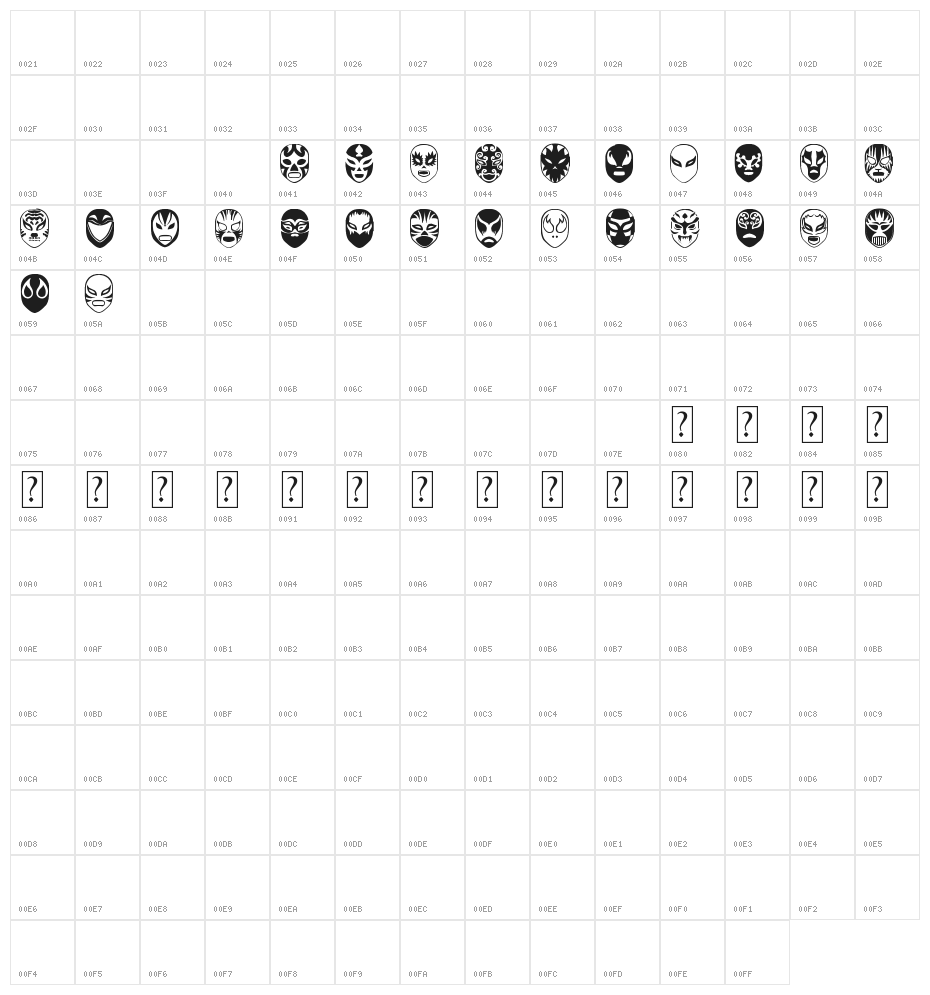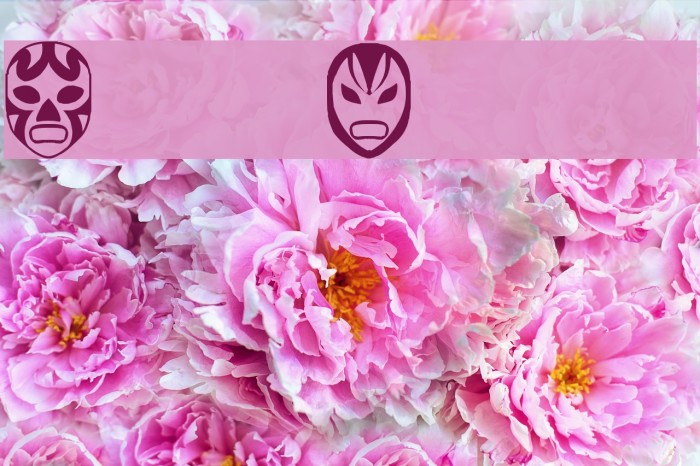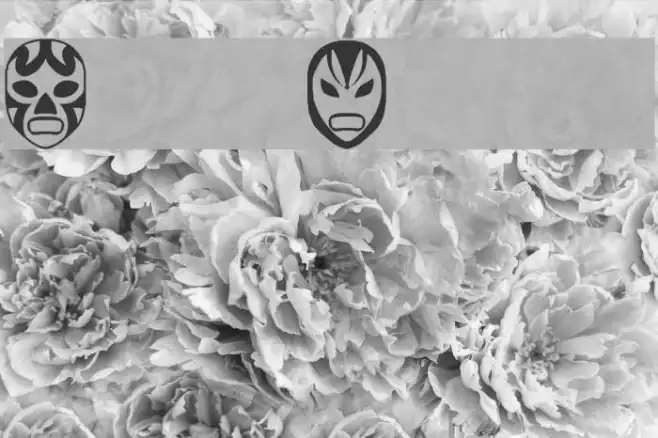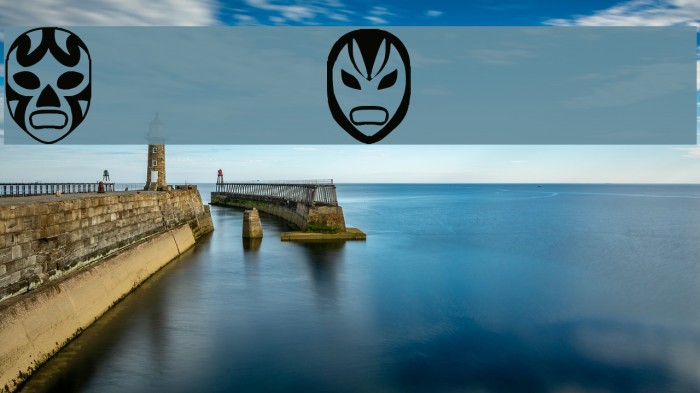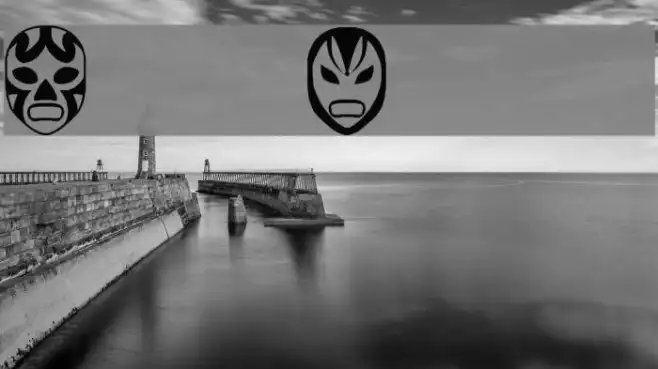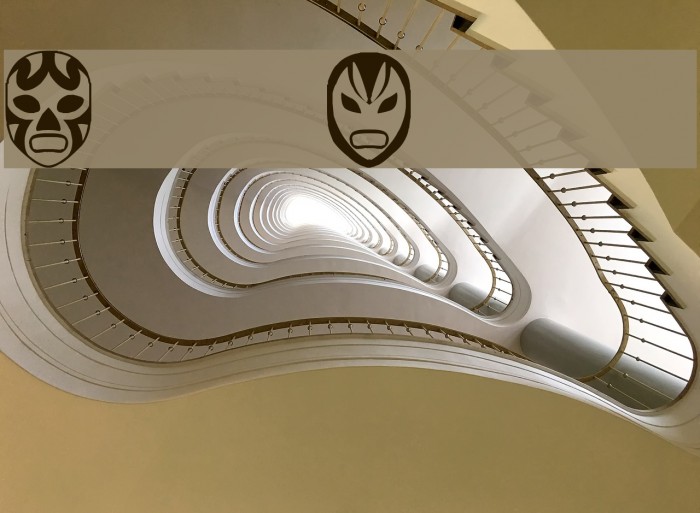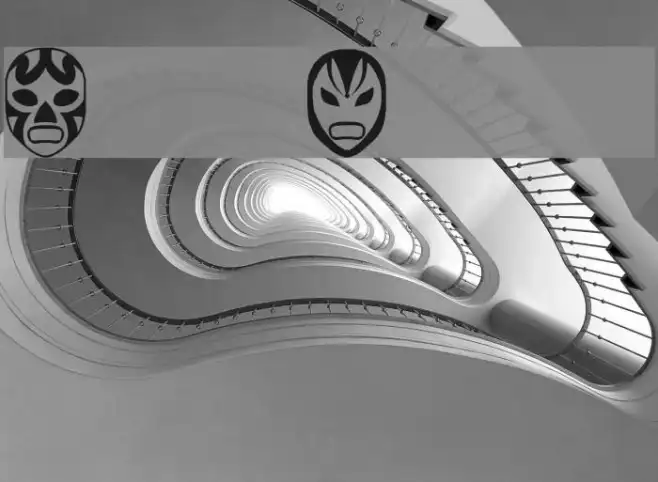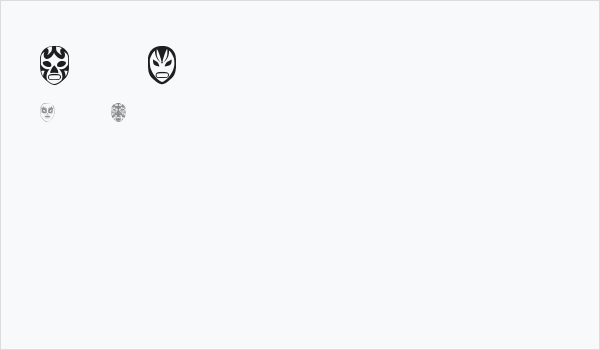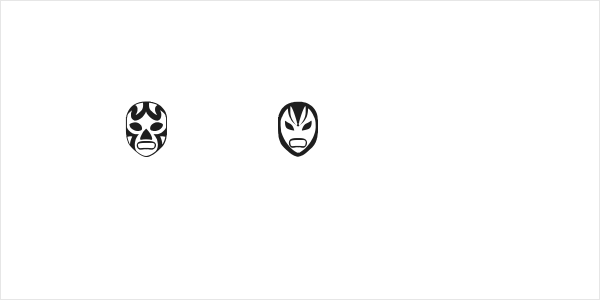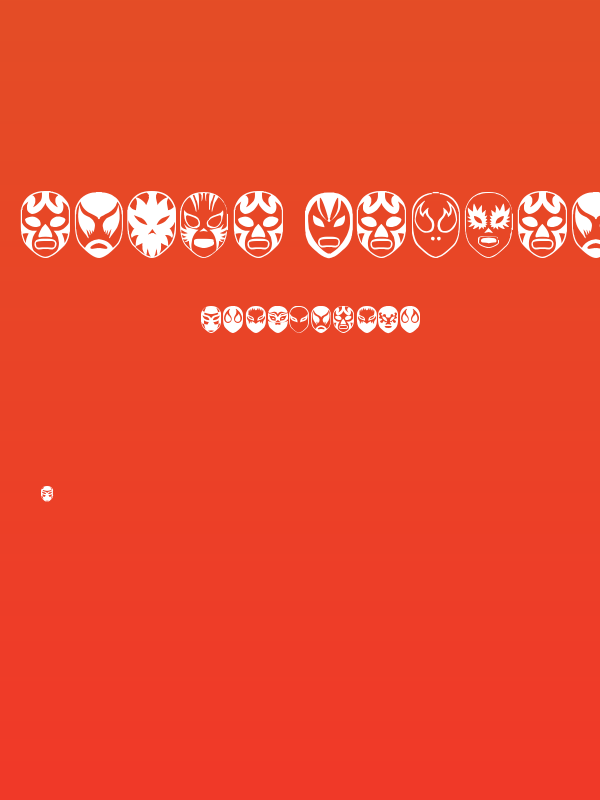
Arena Mascaras Font
Arena Mascaras Description
A decorative display typeface featuring stylized mask illustrations inspired by Lucha Libre wrestling, each character is represented by a unique mask design with bold, high-contrast black and white shapes.
| Overall Style | Decorative, Playful, Thematic |
| Use Case | Logos, Headlines, Posters, Themed Graphics |
| Proposed Projects | Posters, event flyers, branding for wrestling events, themed merchandise, childrenΓ’β¬β’s party invitations, or cultural festival graphics. |